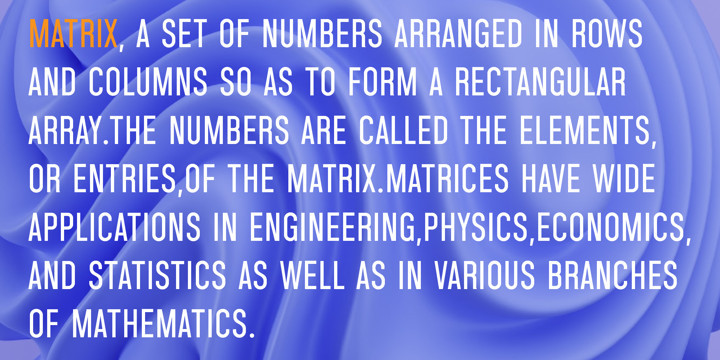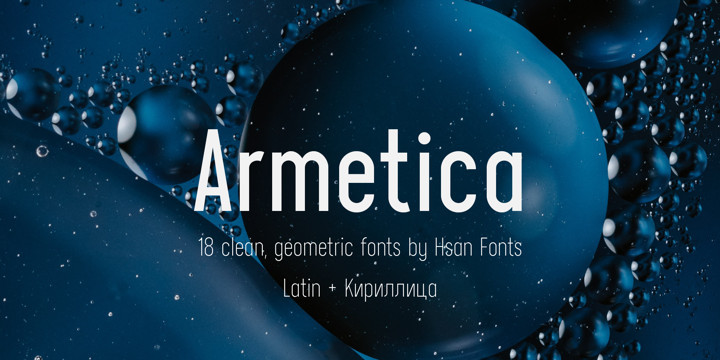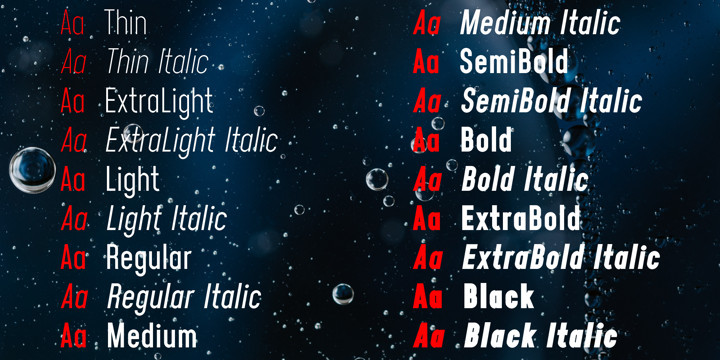
Armetica Font Family
Armetica Font FamilyArmetica is an ultra condensed sans serif typeface with a unique personality. It comes in normal and display versions, with 9 weights, as well as italics totaling 18 fonts.
Armetica is a modern elegant typeface that would be perfect for branding, logos, headlines or captions. The font could also work as a stylish text overlay on any background image you like, minimalist and warm while still being versatile enough to use anywhere!